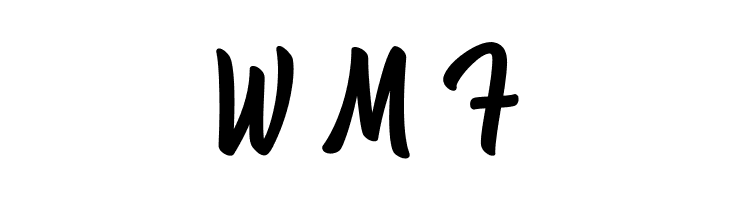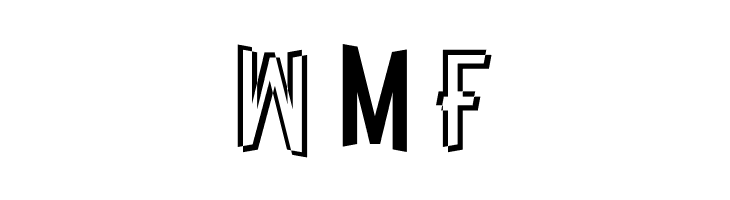
• Astakhov First Simple S
A bold, outlined font with a modern and dynamic style.
• Astakhov First Simple SF
Bold, decorative font with a three-dimensional shadow effect.
• Astakhov First Two Stripes
Bold, geometric, and condensed font with a modern style.
• Astakhov First Two Stripes
A bold, decorative font with diagonal stripes for a dynamic look.
• Astakhov First Two Stripes F
A bold, modern font with thick strokes and tight spacing, perfect for impactful designs.
• Astakhov First Two Stripes FS
A bold, decorative font with a double-stripe design and modern geometric style.
• Astakhov First Two Stripes L
A modern, striped font with bold, geometric characters.
• Astakhov First Two Stripes S
A bold, decorative font with a double-stripe shadow effect for a 3D look.
• Astakhov First Two StripesChaos
A bold, dynamic font with a mix of solid and outlined characters, perfect for striking designs.
• Astonia
A bold, playful handwritten font with rounded, connected letters.